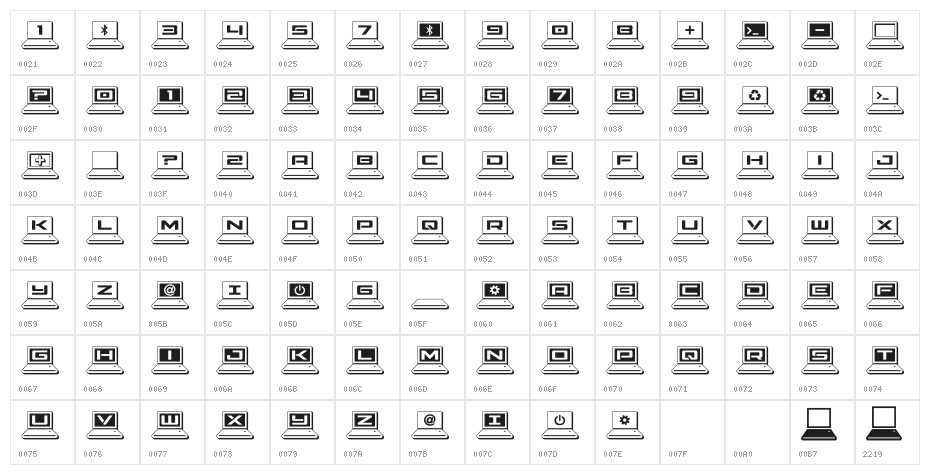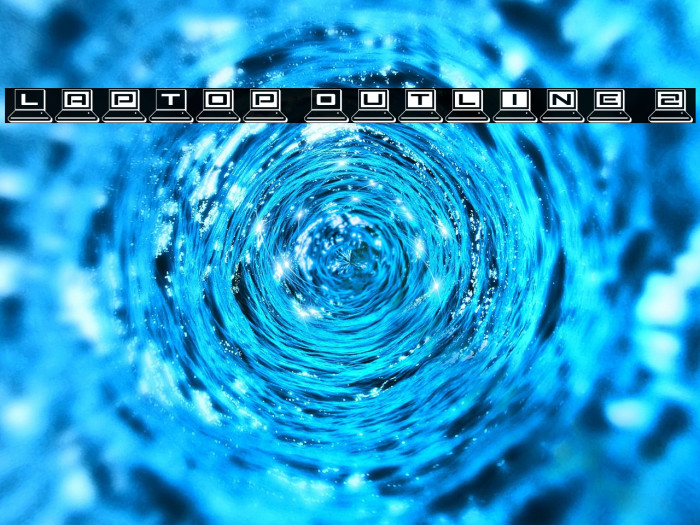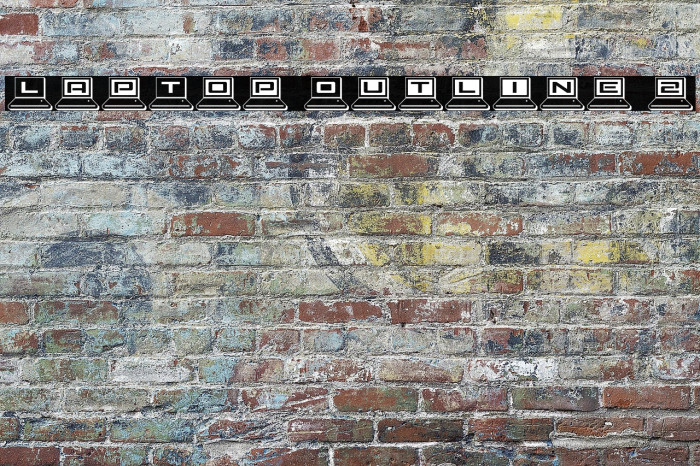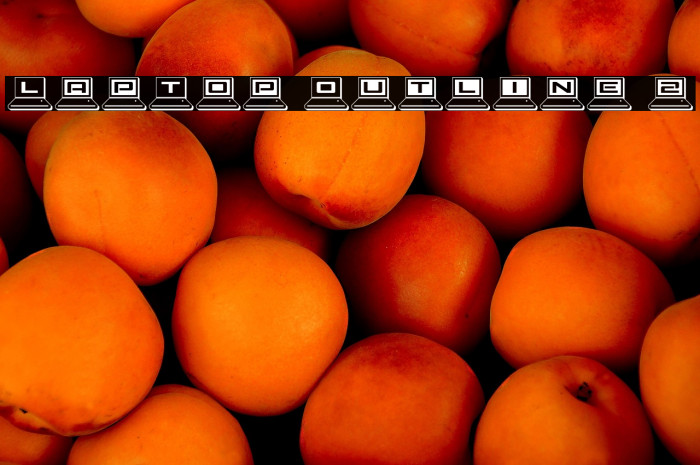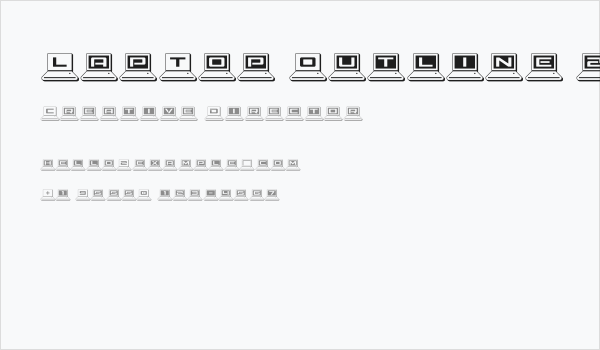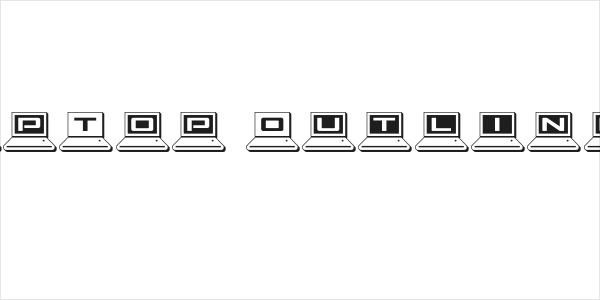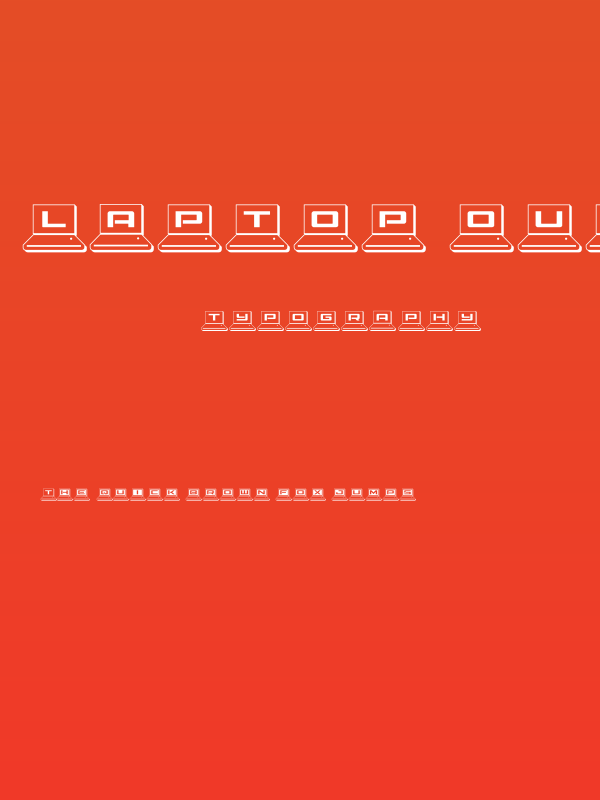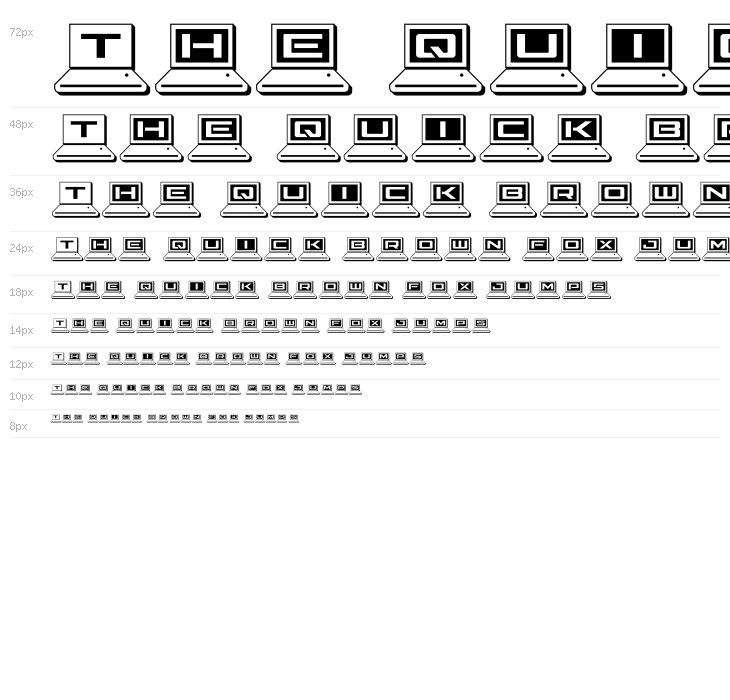
LapTop Outline 2 Font
LapTop Outline 2 Description
This font features a unique design where each character is enclosed within a stylized laptop outline, giving it a distinct technological and modern appearance. The characters are bold and prominently displayed within the screen area of the laptop, creating a playful yet structured look. The uppercase and lowercase letters, as well as numbers and special characters, maintain a consistent style, ensuring uniformity across the font. The design is particularly suitable for projects that aim to convey a sense of digital innovation or tech-savvy aesthetics.
Proposed ProjectsIdeal for tech-related branding, digital marketing materials, educational tools, and playful tech-themed designs.